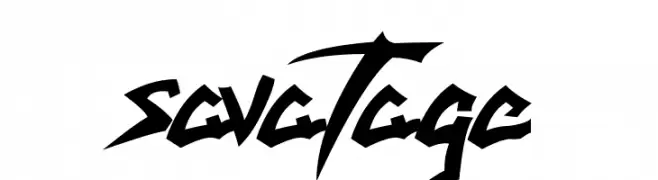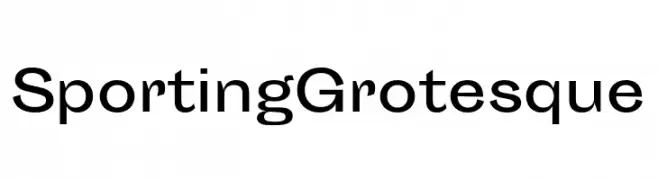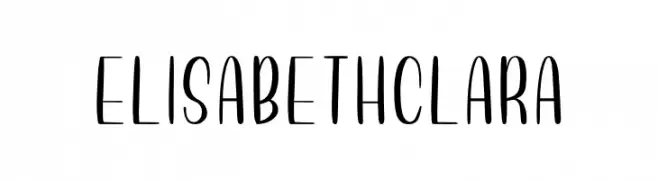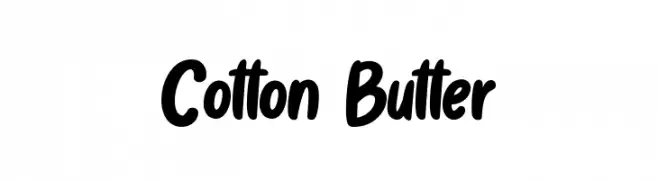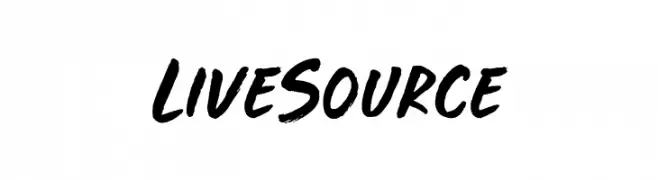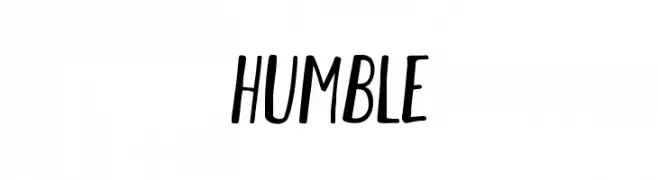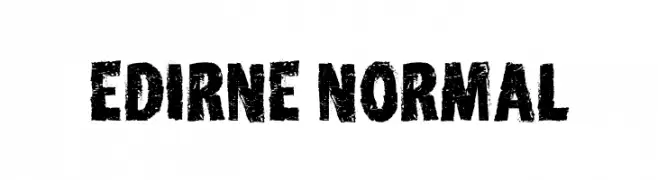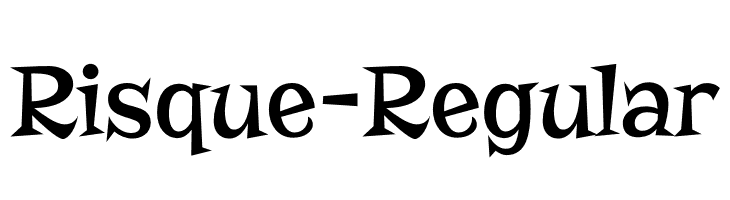
( Fonts by Gilberto Bressan Junior )
A bold, edgy font with sharp, angular lines and high contrast, ideal for dynamic designs.
( Fonts by Velvetyne )
A modern, geometric sans-serif font with clean lines and uniform strokes.
A playful, handwritten font with tall, narrow letters and a casual style.
( Fonts by Four Lines )
A bold, handwritten font with smooth, rounded edges and a playful style.
A bold, modern font with thick, uniform strokes and tight spacing.
A bold, dynamic script font with brush-like strokes and a lively, handwritten feel.
( Fonts by Adhitya Nugroho )
A playful handwritten font with smooth curves and a casual style.
( Fonts by Iordanis Passas )
A bold, distressed font with a rugged, vintage appearance.
A bold, geometric sans-serif font with a modern and clean design.